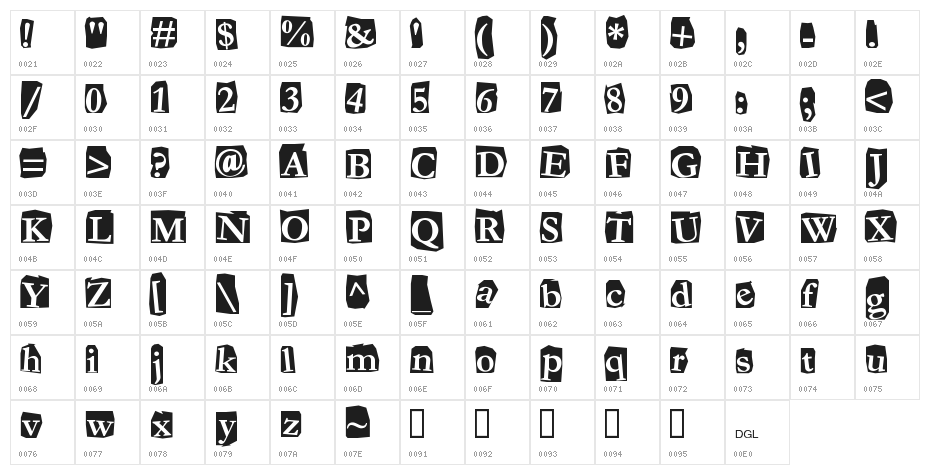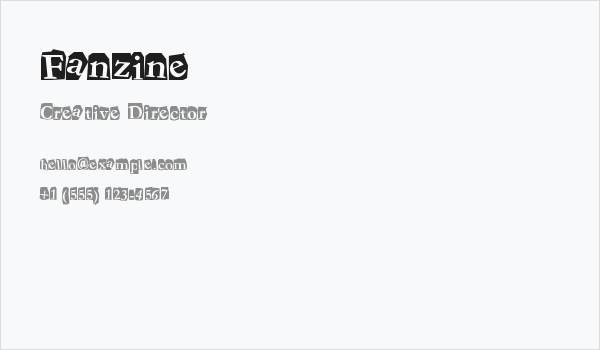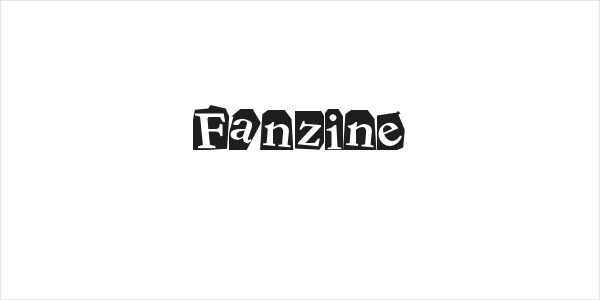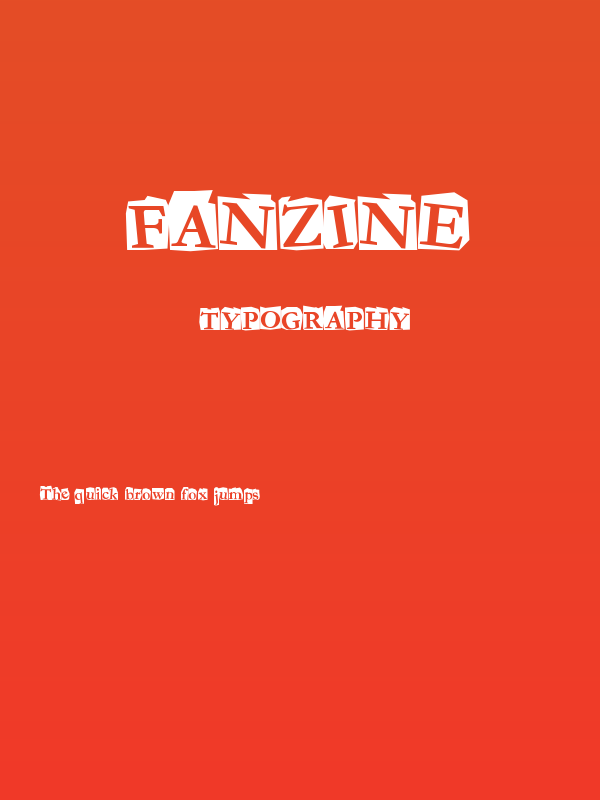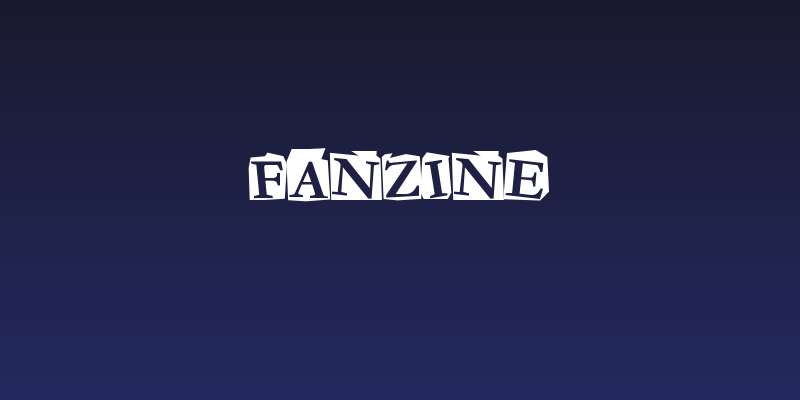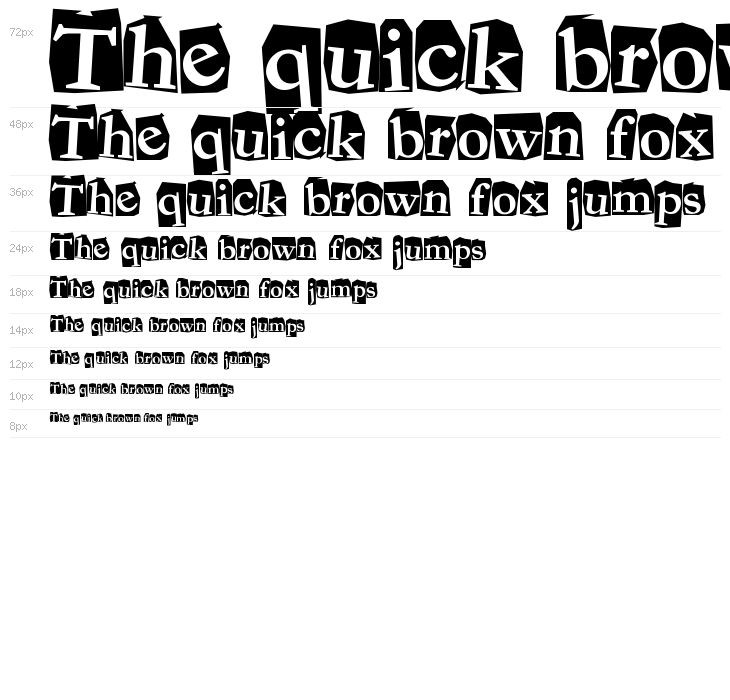
Fanzine Font
Fanzine Description
This font exudes a playful and rebellious spirit, reminiscent of cut-out letters from magazines or newspapers. Each character is uniquely shaped, giving it a dynamic and eclectic appearance. The letters are bold and slightly irregular, creating a sense of movement and energy. The font's design is perfect for capturing attention, with its high contrast and distinctive style. It combines elements of both vintage and modern aesthetics, making it versatile for various creative projects. The quirky and unconventional nature of this font makes it ideal for designs that aim to stand out and make a statement.
| Overall Style | Eclectic, Playful, Rebellious |
| Use Case | Headlines, Posters, Album Covers |
| Proposed Projects | Ideal for zines, posters, album covers, and any project needing a bold, rebellious touch. |